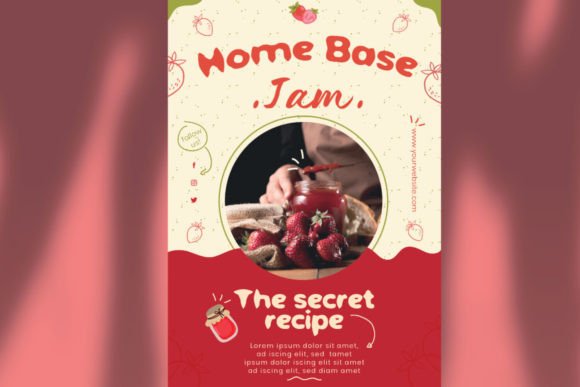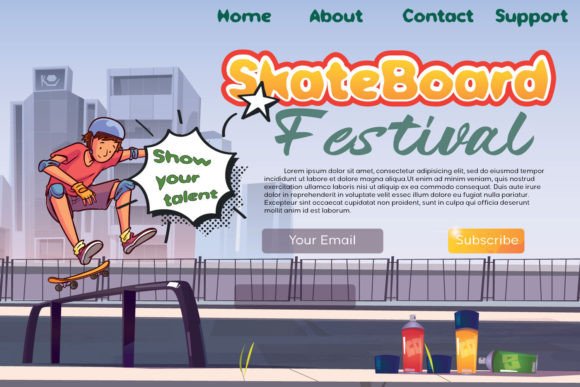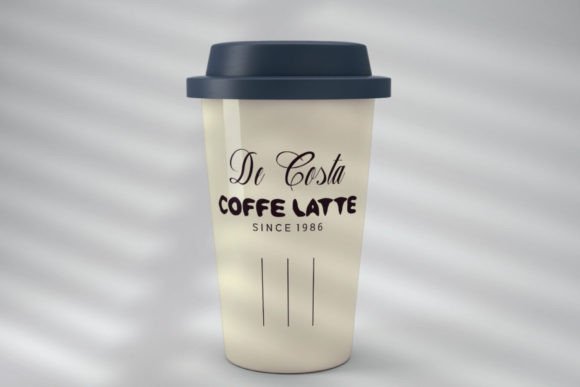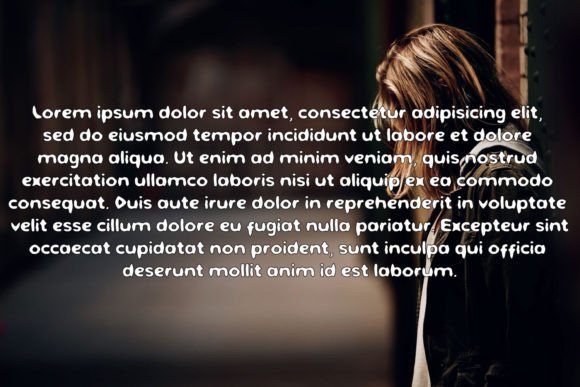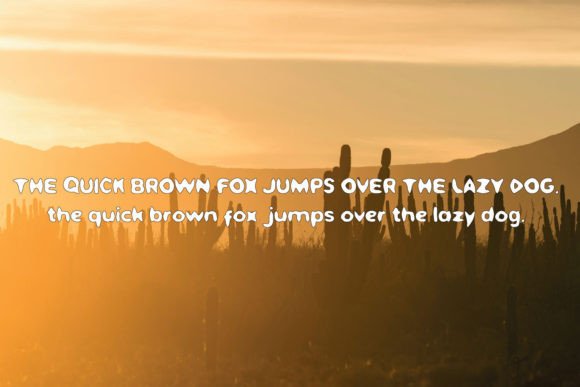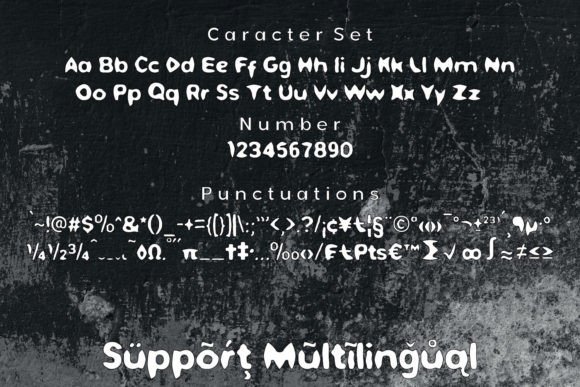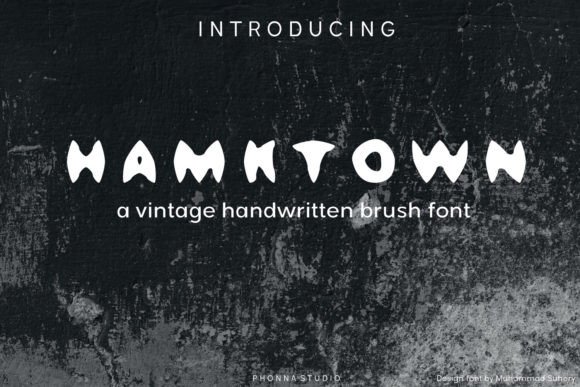
Discover the Unique Charm of Hamktown Font: Elevate Your Creative Projects
Hamktown is an incredibly unique handwritten font that has been masterfully designed to become a true favorite among designers and crafters. With its distinctive character and versatility, this font has the potential to bring each of your creative ideas to the highest level. In this article, we’ll dive into the world of Hamktown Font, exploring its features, benefits, and the various ways you can use it to take your projects to new heights.
The Story Behind Hamktown Font
Hamktown Font is a carefully crafted handwritten font that boasts a one-of-a-kind personality. Its creator has poured their heart and soul into designing a font that is not only visually stunning but also highly functional. The result is a font that is both elegant and approachable, making it perfect for a wide range of creative projects.
What Makes Hamktown Font So Special?
So, what sets Hamktown Font apart from other fonts on the market? Here are just a few of its standout features:
- Unique Handwritten Style: Hamktown Font features a distinctive handwritten style that is both personal and engaging. Its irregularities and quirks give it a human touch that is hard to replicate with traditional fonts.
- Highly Legible: Despite its handwritten nature, Hamktown Font is remarkably legible, making it suitable for use in a variety of contexts, from body text to headings and titles.
- Versatile: Hamktown Font is an incredibly versatile font that can be used in a wide range of creative projects, from digital designs to print materials.
- Easily Customizable: With its extensive range of characters and ligatures, Hamktown Font can be easily customized to suit your specific design needs.
How to Use Hamktown Font in Your Creative Projects
Hamktown Font is an incredibly versatile font that can be used in a wide range of creative projects. Here are just a few ideas to get you started:
- Branding and Logo Design: Use Hamktown Font to create a unique and memorable brand identity that sets you apart from the competition.
- Digital Designs: Add a personal touch to your digital designs, from social media graphics to website headers, with Hamktown Font.
- Print Materials: Use Hamktown Font to add a touch of elegance and sophistication to your print materials, from business cards to brochures.
- Crafting and Scrapbooking: Add a personal touch to your crafting and scrapbooking projects with Hamktown Font, perfect for journaling and titling.
Tips and Tricks for Getting the Most Out of Hamktown Font
To get the most out of Hamktown Font, here are a few tips and tricks to keep in mind:
- Experiment with Different Sizes and Colors: Don’t be afraid to experiment with different sizes and colors to find the perfect combination for your project.
- Mix and Match with Other Fonts: Hamktown Font pairs beautifully with other fonts, so don’t be afraid to mix and match to create a unique look.
- Use Ligatures and Swashes: Take advantage of Hamktown Font’s extensive range of ligatures and swashes to add an extra touch of elegance and sophistication to your designs.
In conclusion, Hamktown Font is an incredibly unique and versatile handwritten font that has the potential to bring each of your creative ideas to the highest level. With its distinctive character, high legibility, and extensive range of customization options, this font is perfect for designers and crafters looking to add a personal touch to their projects. Whether you’re working on a branding project, digital design, or print material, Hamktown Font is sure to become a true favorite.